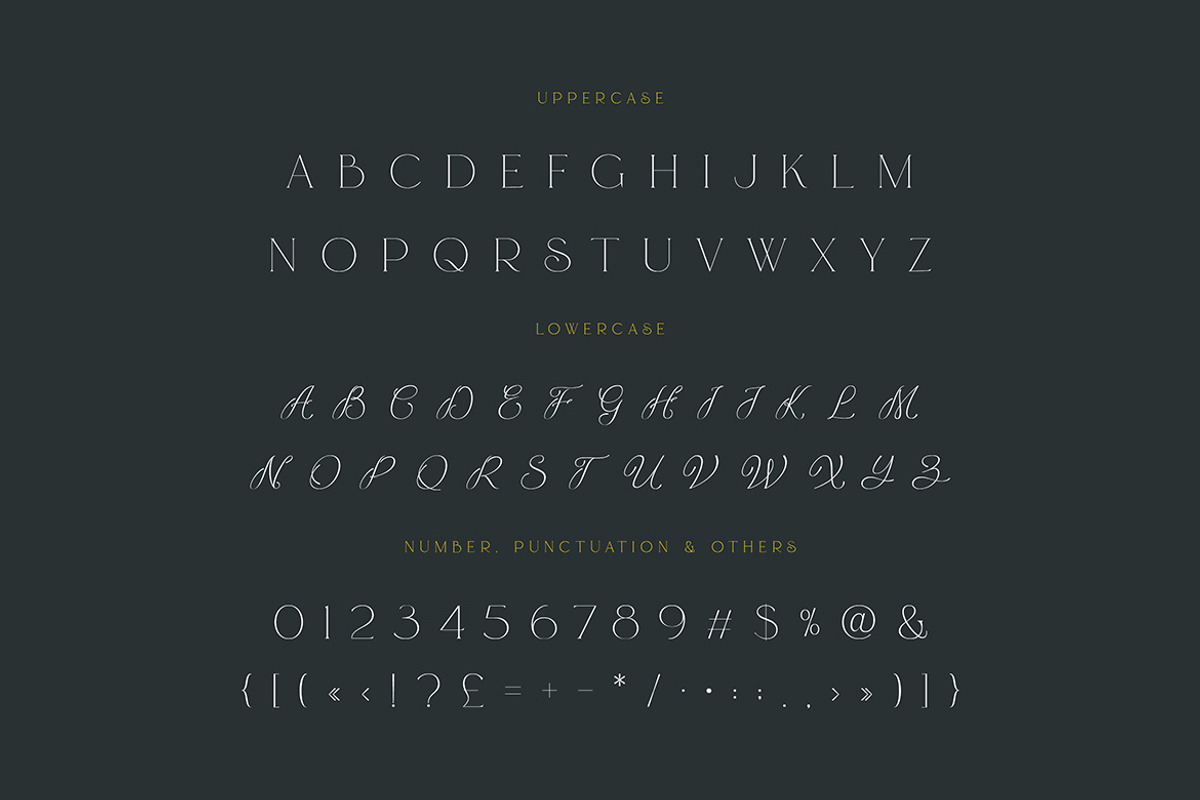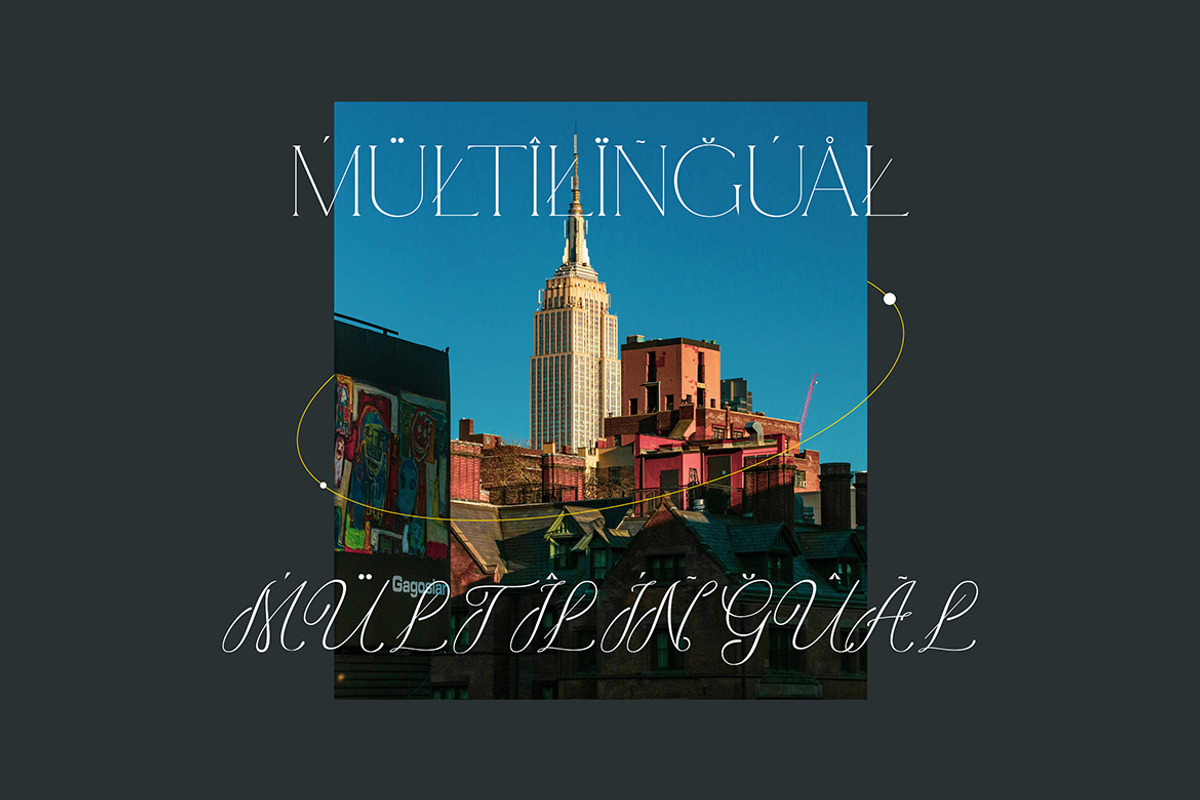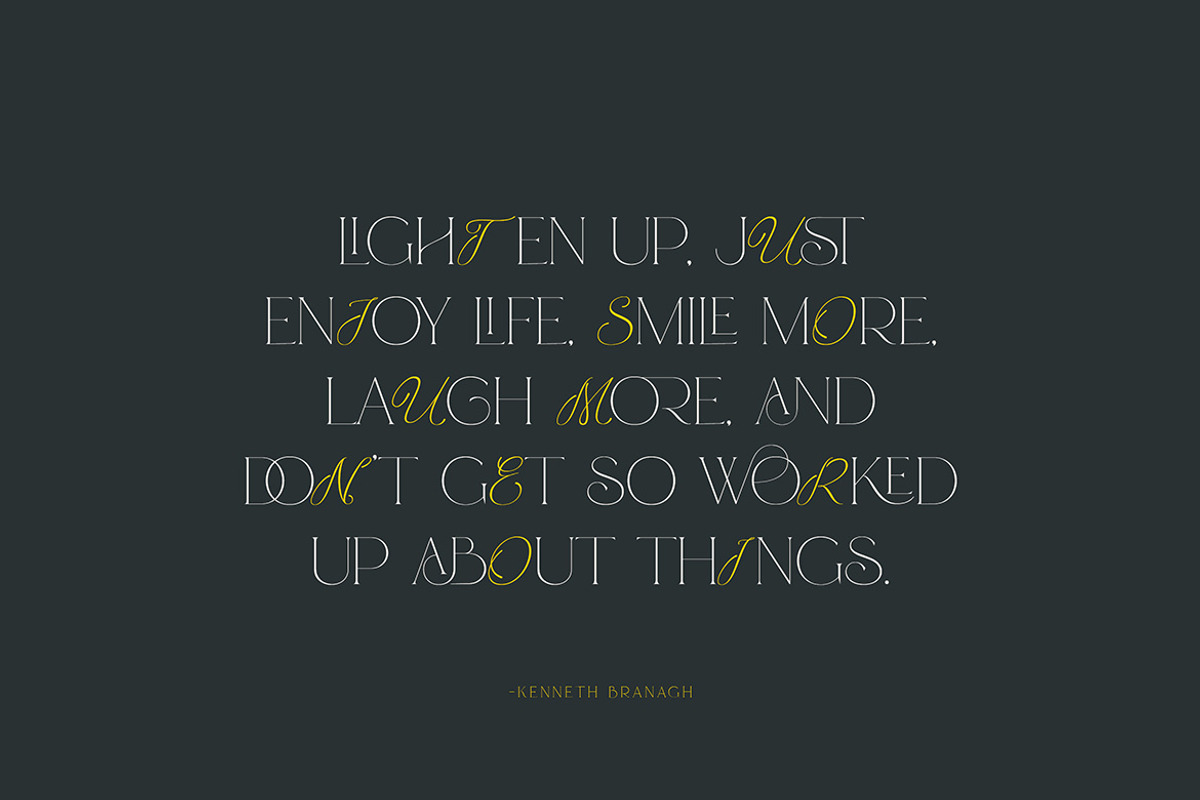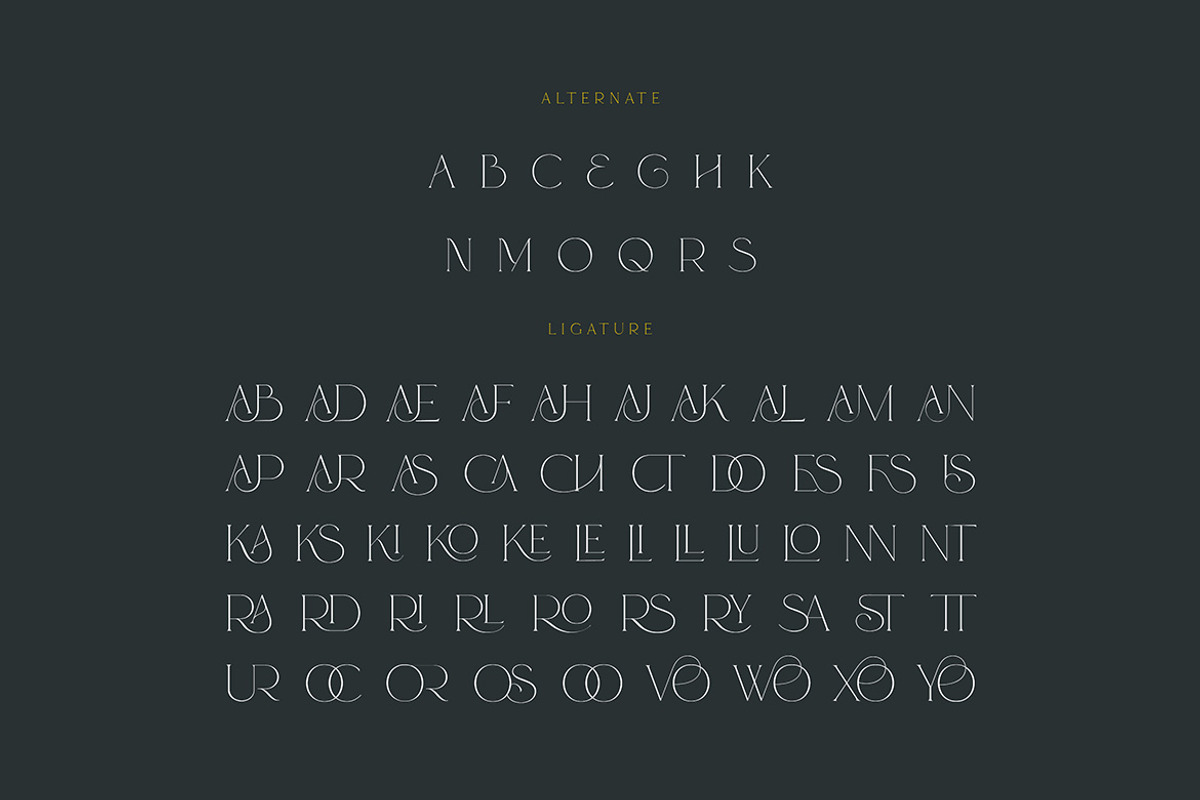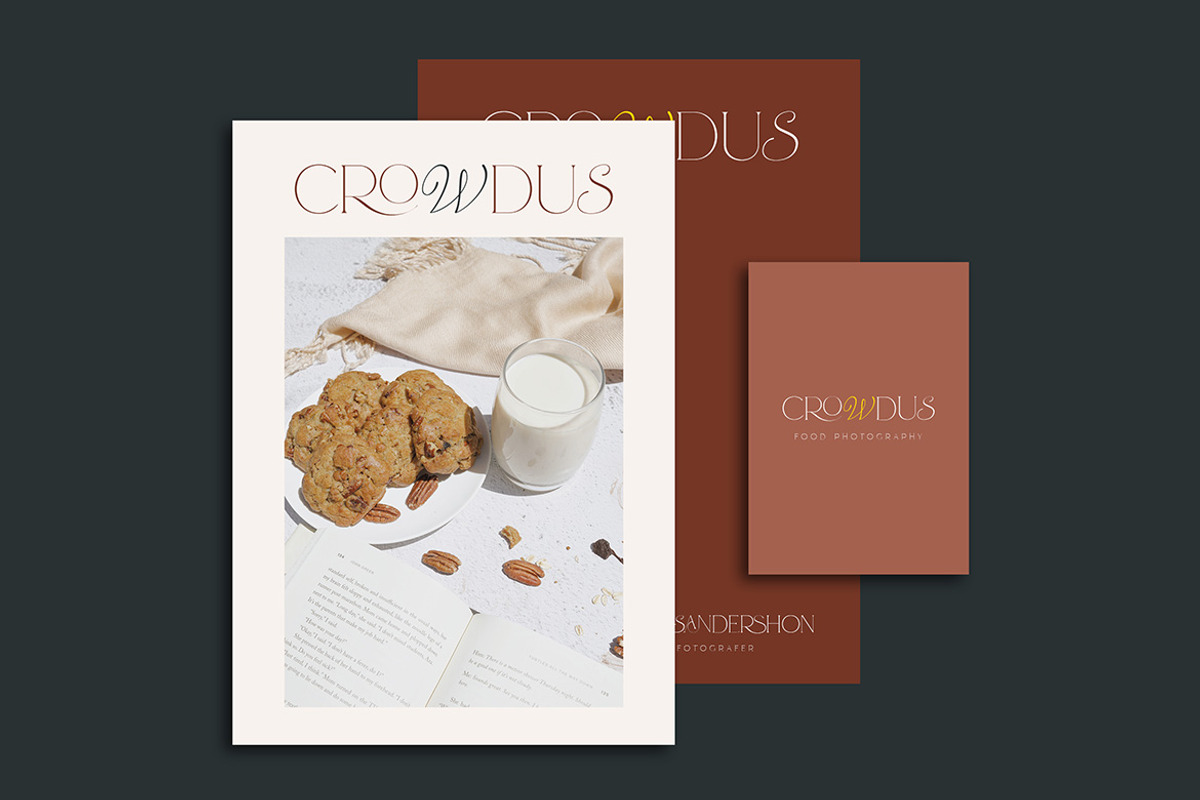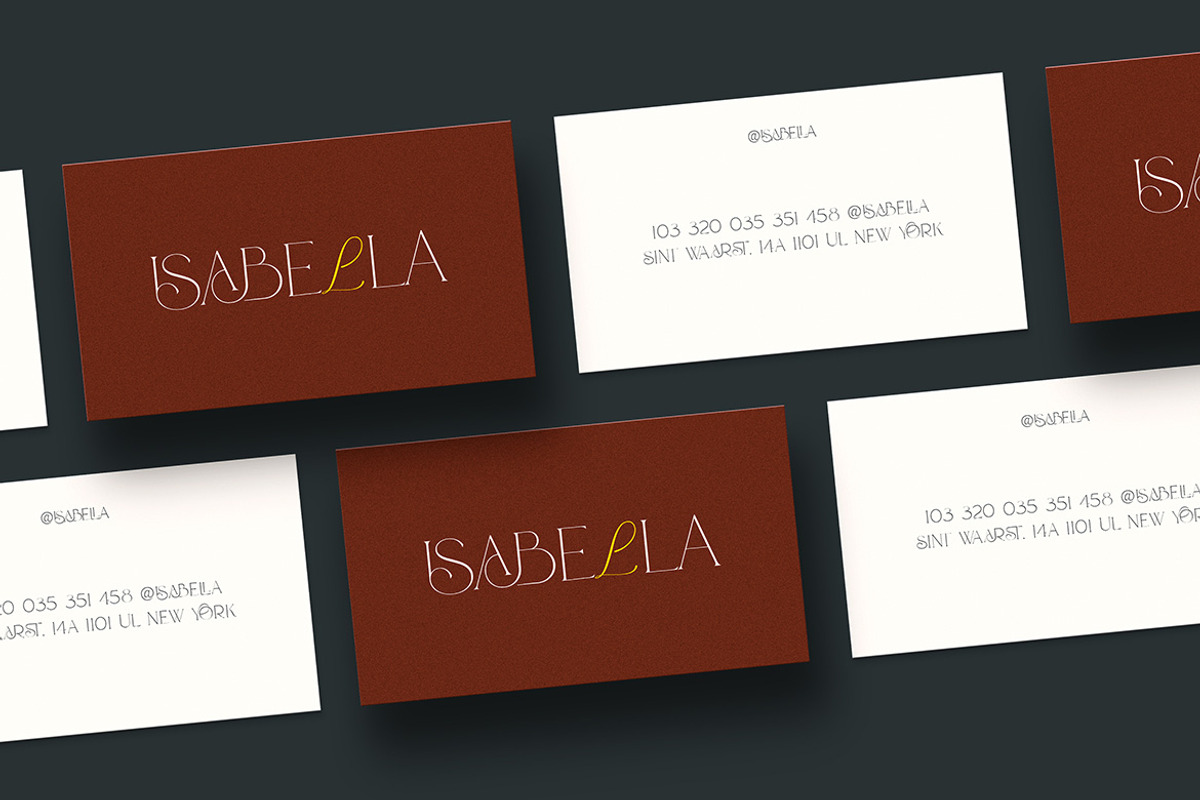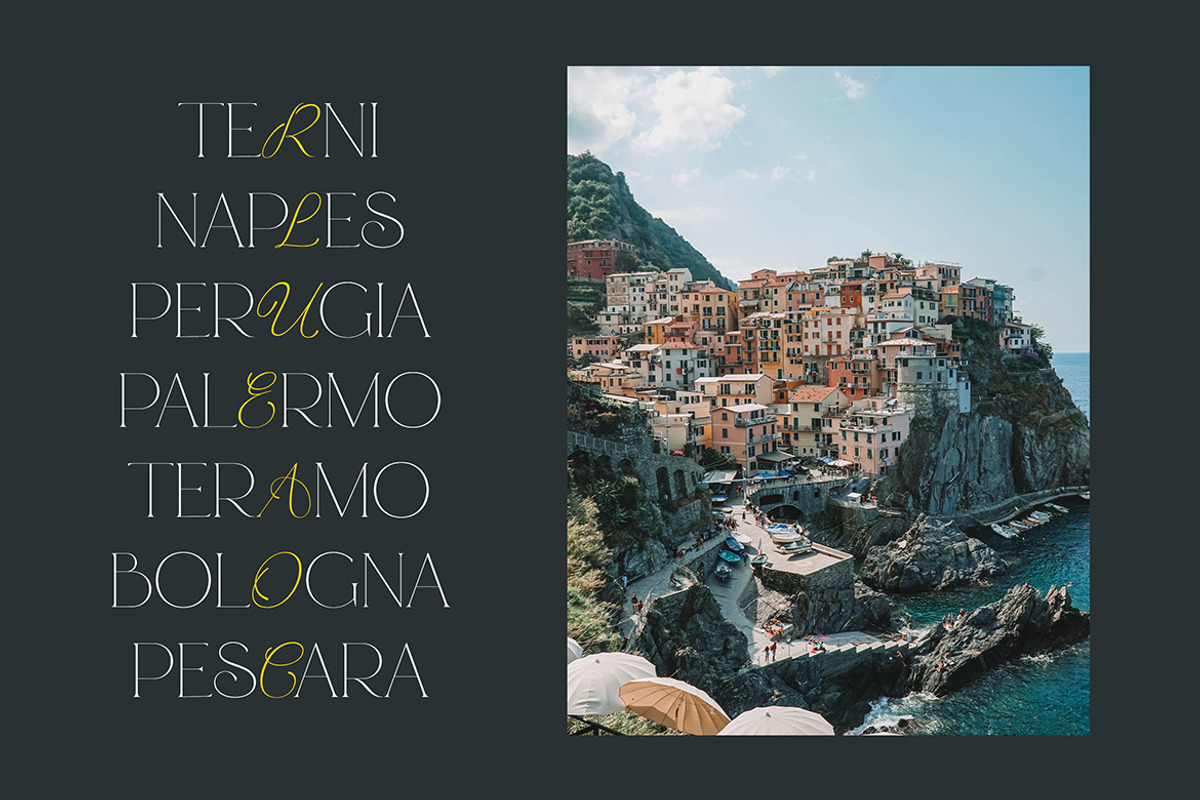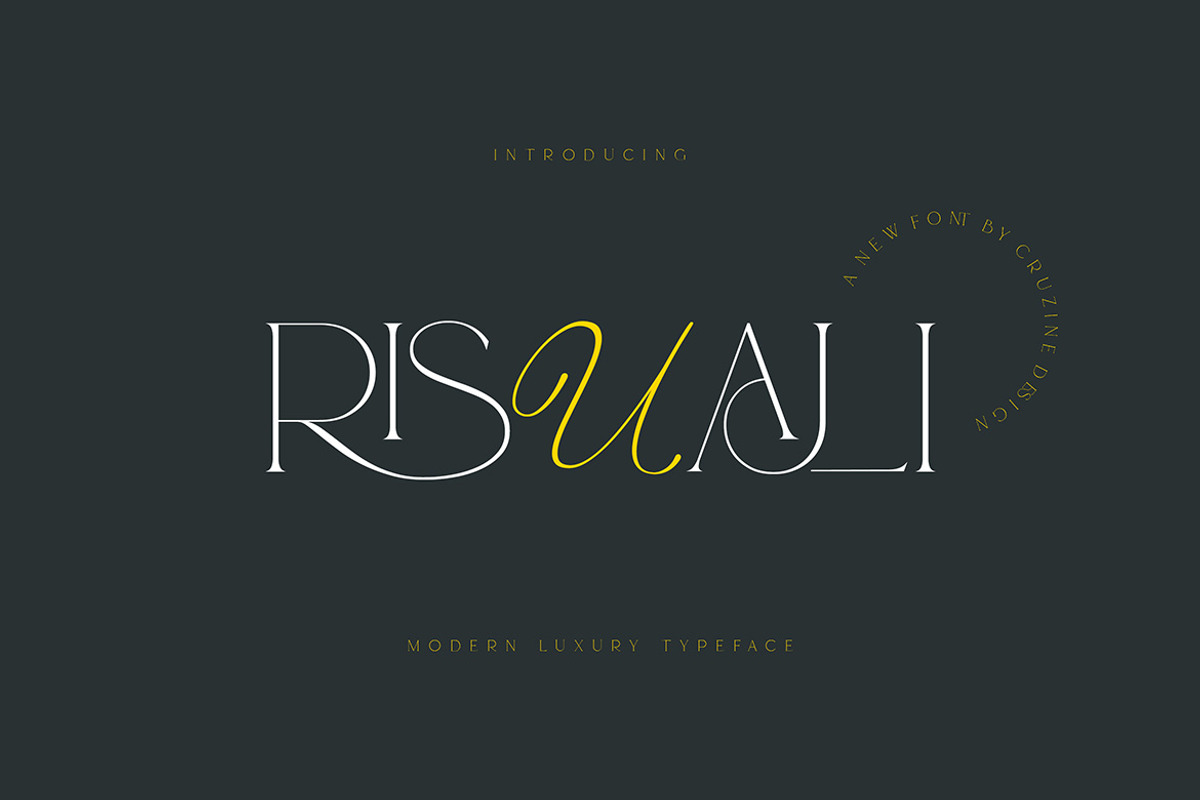
Risuali - Luxury Typeface
Trendy, elegant, luxury & modern style serif font for your fancy projects. Elegant, artistic and romantic style on Risuali font will be great for any branding project. Lot of alternates and ligatures will help you to create unique and original logo design or website header! Enjoy :)
- Lot of alternate characters
- Lot of ligatures
- Great for modern branding projects!